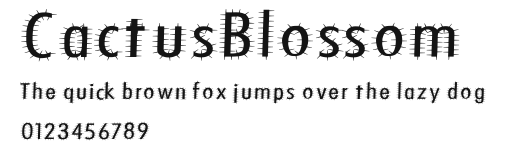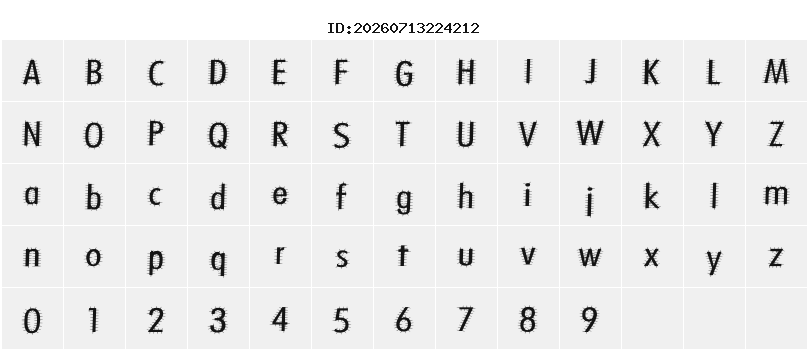
• Font Name: CactusBlossom
• Full Font Name: CactusBlossom
About CactusBlossom.ttf
CactusBlossom.ttf is a modern, elegant sans-serif font designed for ultimate readability and visual harmony. Perfect for branding, headlines, web design, and print materials.